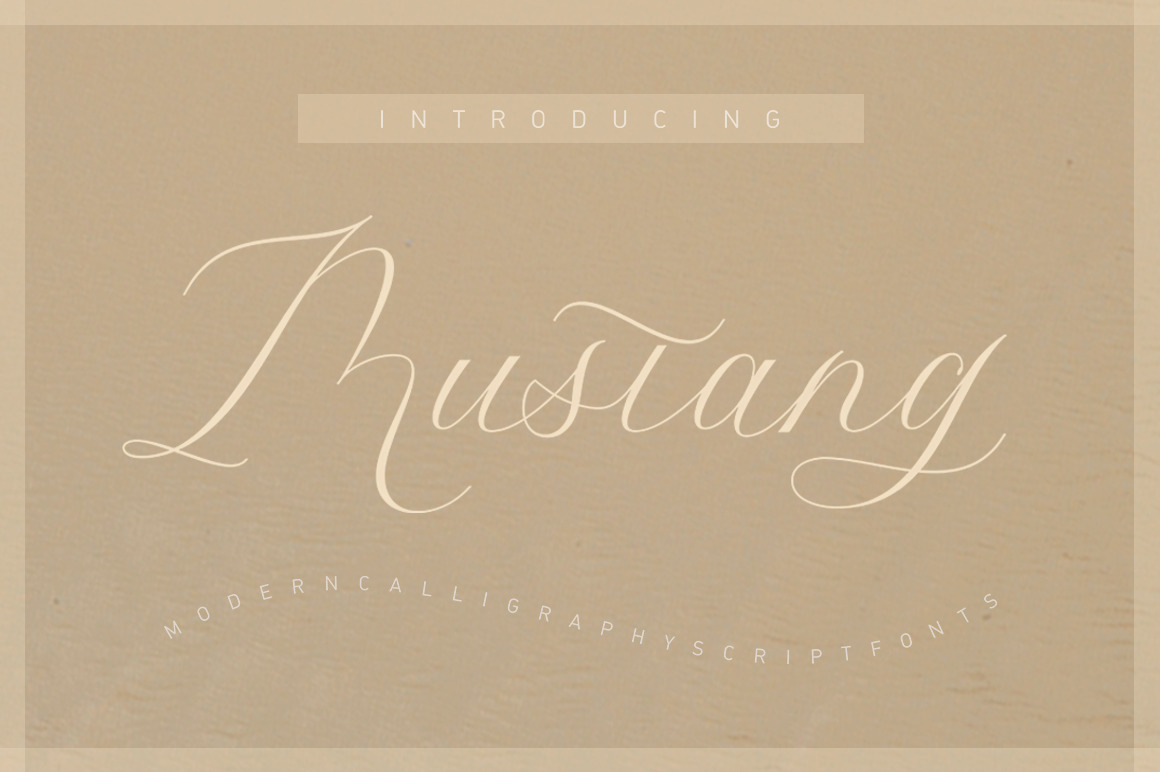
Mustang Script Font
Mustang Script Font is perfect for Western ranch branding, rodeo event promotions, cowboy heritage businesses, horse training facilities, American muscle car dealerships, and rugged outdoor adventure companies. This spirited typeface excels in ranch tourism marketing, Western wear merchandise, equestrian club communications, and any application where wild freedom and untamed American spirit create authentic connections with Western lifestyle enthusiasts and horse lovers.
What makes Mustang Script Font so exciting is its incredible ability to capture the wild freedom and untamed spirit of the American mustang through flowing, galloping letterforms that seem to move with the grace and power of wild horses. The font features dynamic curves, free-spirited proportions, and galloping character shapes that embody the independence and natural beauty of America's wild horses. Its unbridled presence makes it perfect for brands celebrating freedom and Western heritage.
Mustang Script Font comes in a wild family including Light, Regular, Medium, Bold, and Stallion weights. Each style features complete uppercase and lowercase character sets, Western symbols, equestrian numerals, and ranch punctuation marks. The font family also includes lasso alternates, galloping ligatures, and wild variations that allow designers to create truly authentic Western communications with equestrian appeal and professional frontier quality.
This spirited typeface transforms communications into powerful expressions of Western freedom and equestrian excellence. Mustang Script Font Free Download provides Western businesses and equestrian brands with essential typography that honors horse heritage while serving contemporary Western lifestyle communication needs. Whether you're developing brands for horse ranches, creating materials for rodeo events, or designing promotional content for Western experiences, this font delivers authentic Western resonance with wild elegance.
The font's equestrian character makes it particularly effective for horse ranches, Western tourism companies, rodeo organizations, and American heritage brands. Its flowing readability ensures that Mustang Script Font communicates clearly while maintaining its distinctive wild personality. The font's ability to evoke freedom and Western authenticity makes it an invaluable saddle for any project seeking to celebrate equestrian heritage and connect with audiences through the timeless appeal of wild horses, Western freedom, and the untamed spirit of America's frontier legacy and mustang magnificence.